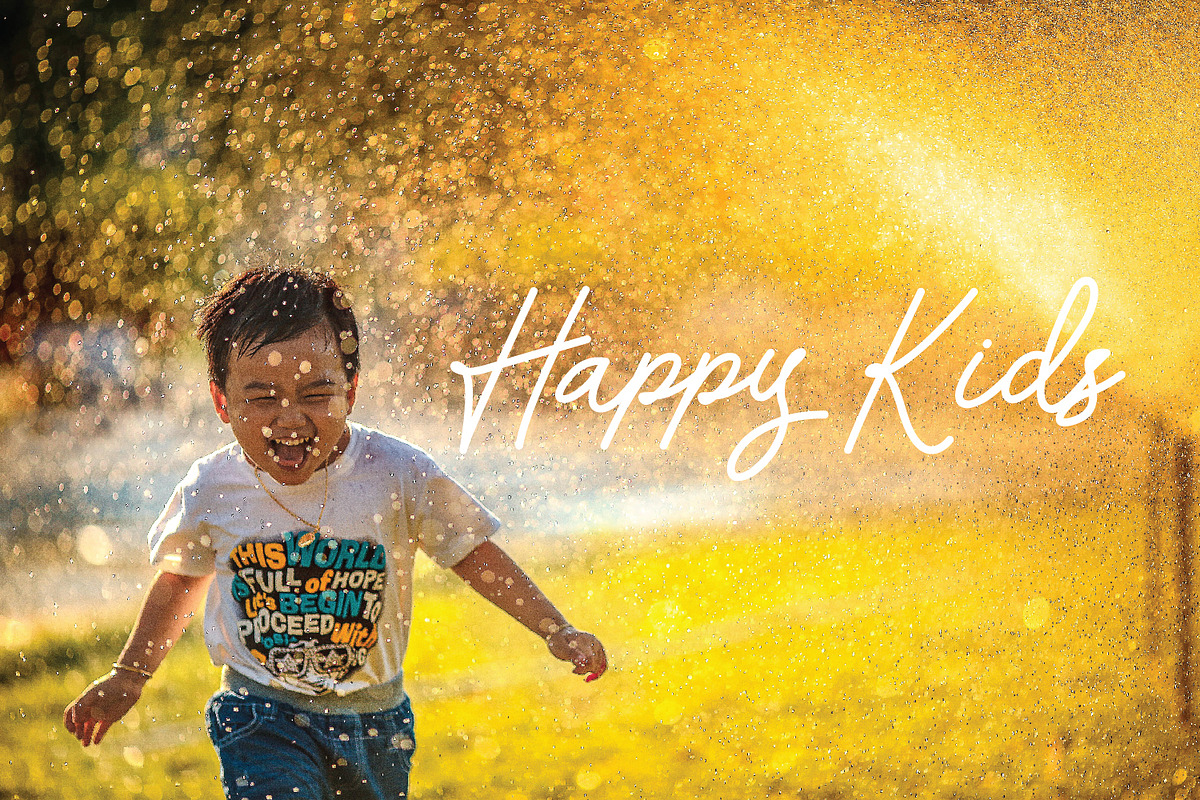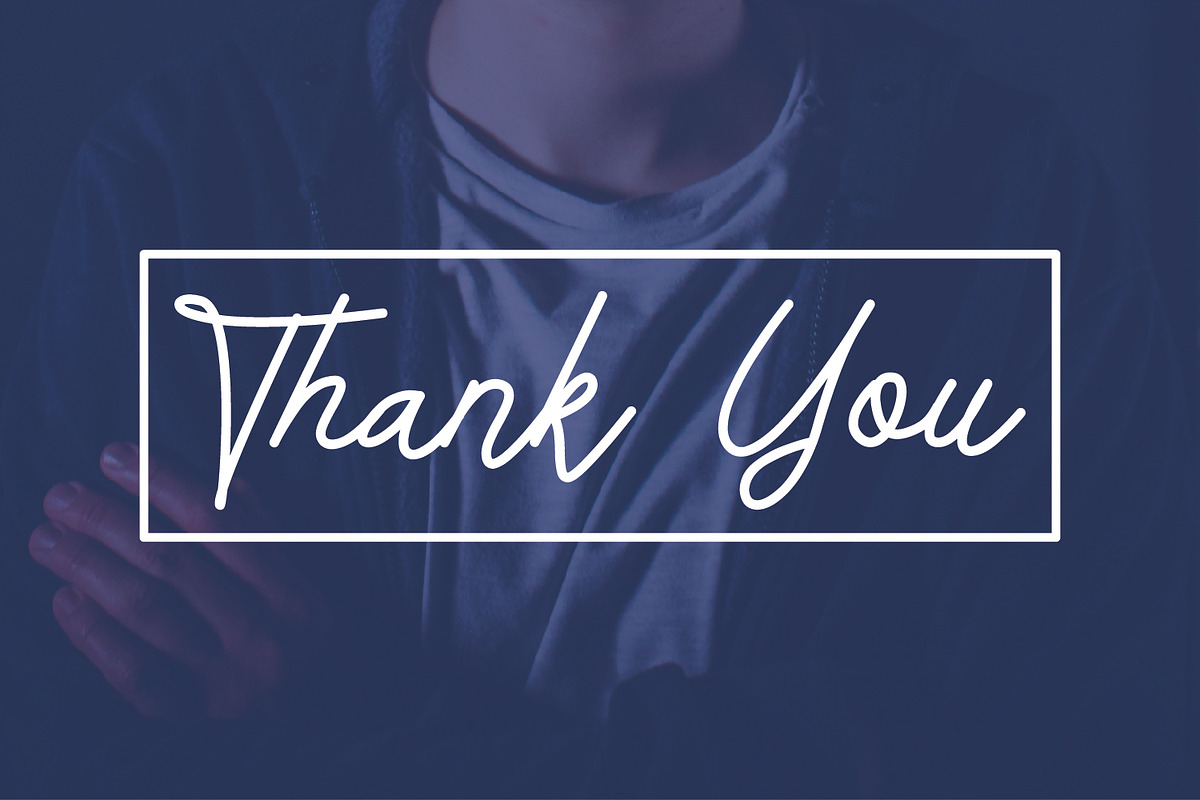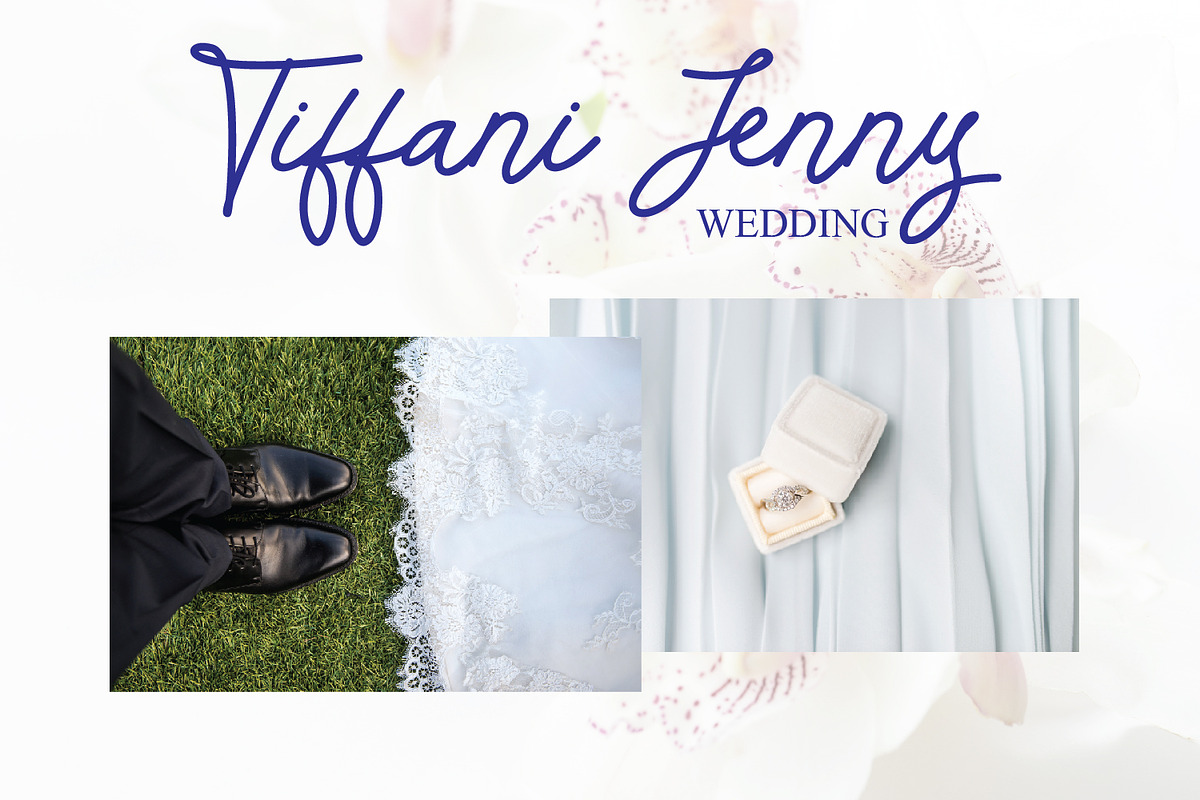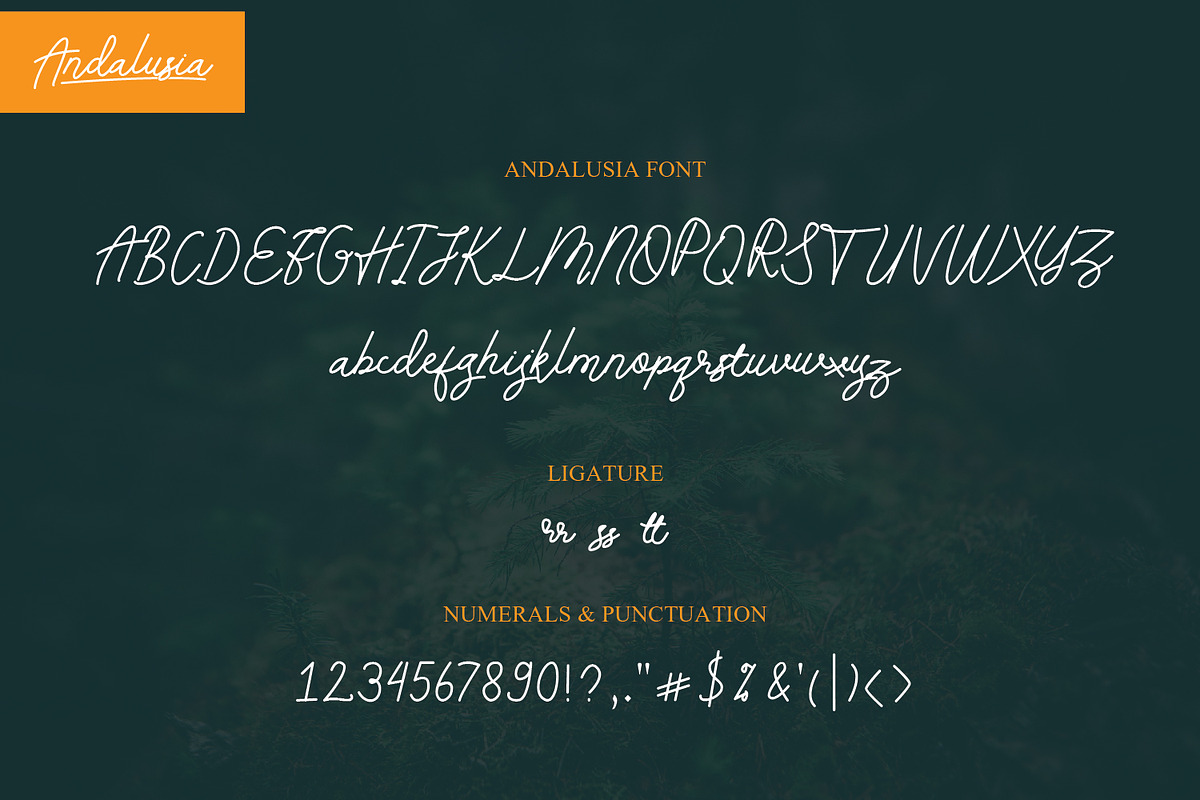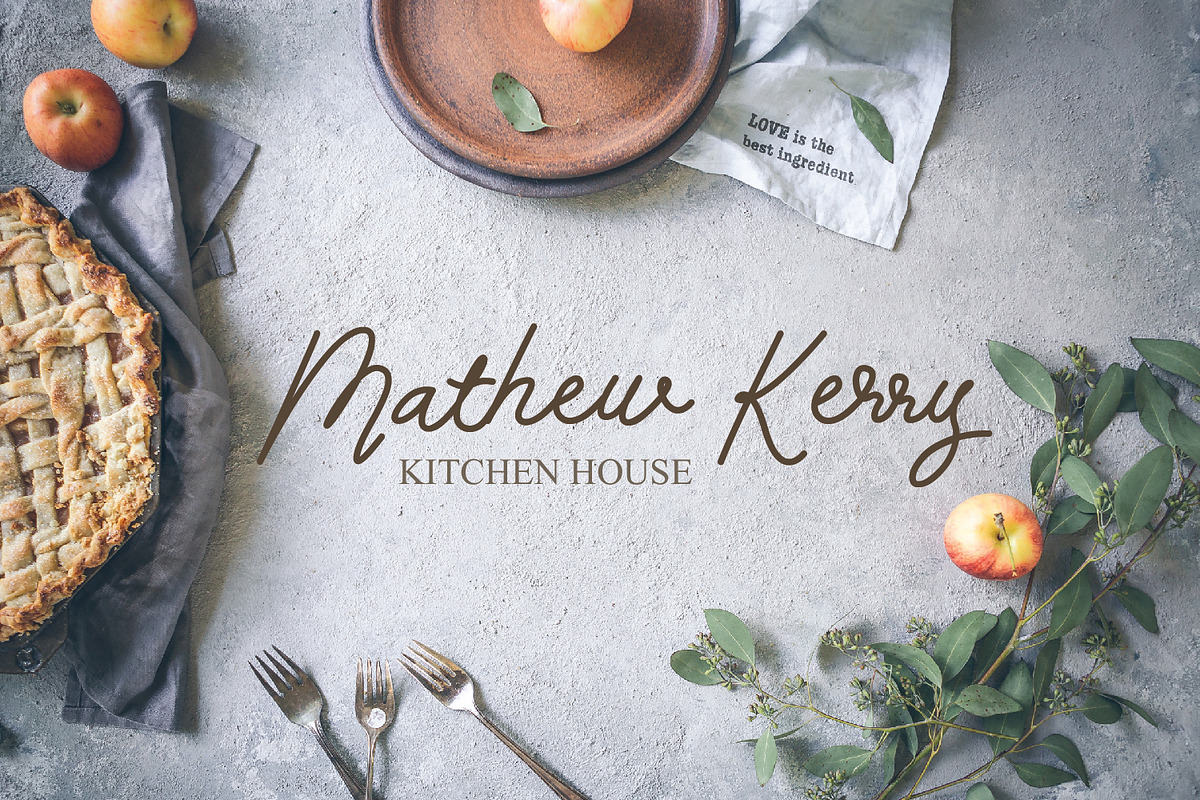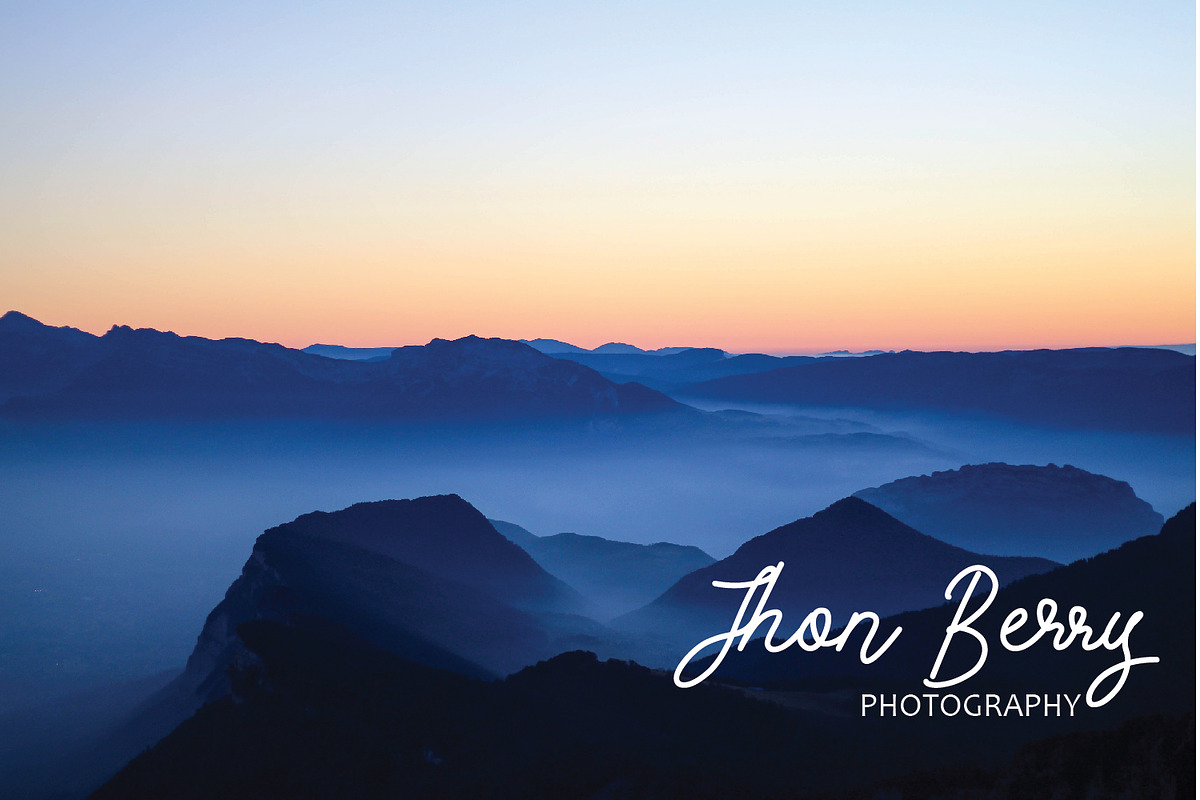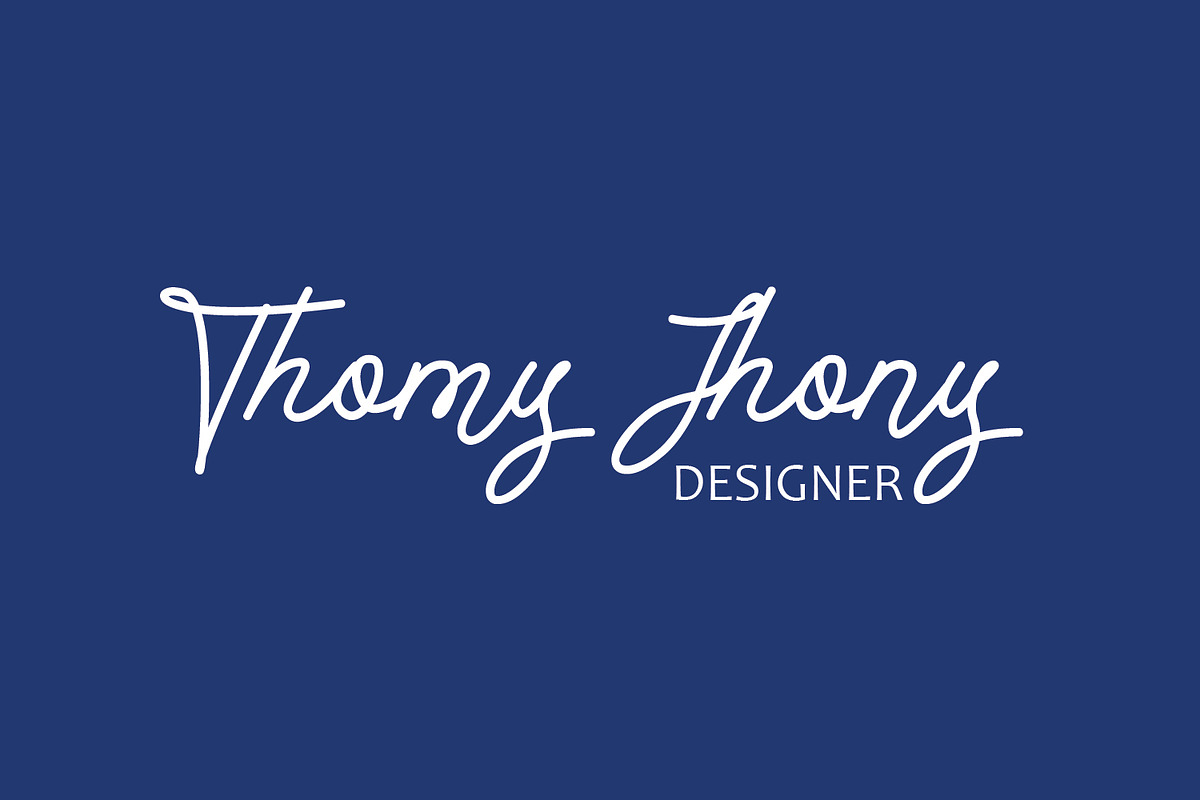
Andalusia - Handwritten Font
Introducing - Andalusia handwritten font which stylish natural handwritten font with simple style, clean and elegant. This font is so fashionable and perfect for photography, branding, signature and logo.
Andalusia - Handwritten Font by sabrcreative fits naturally into Branding, posters, packaging, typography.